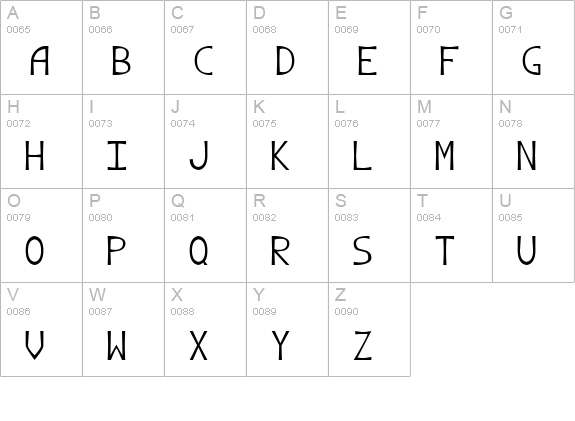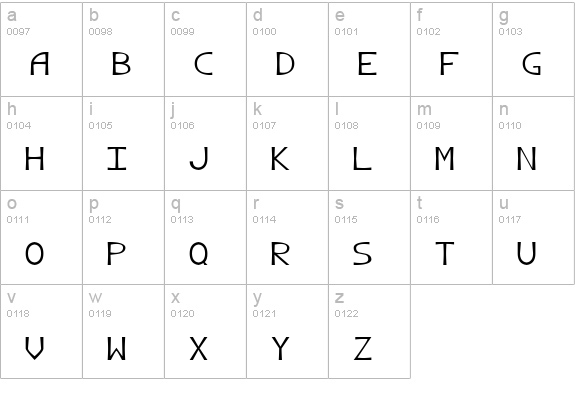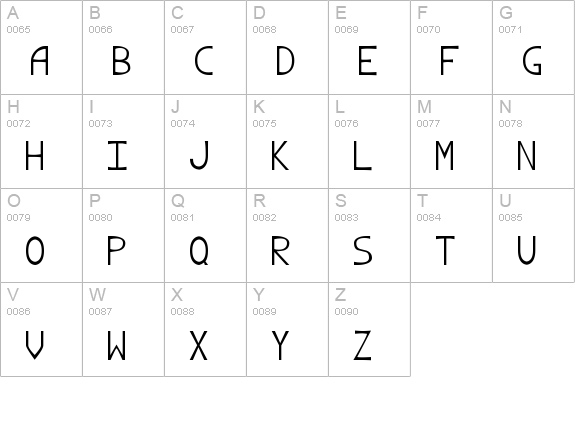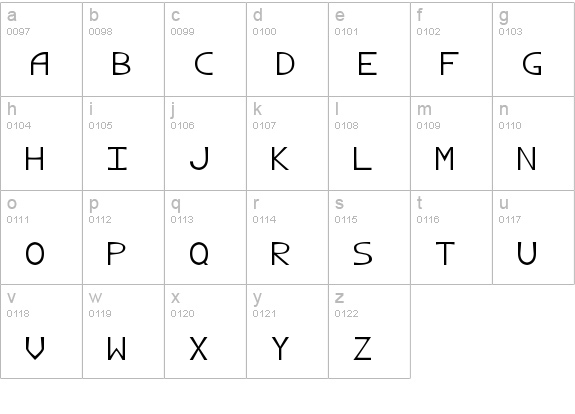
Angelus™ font is a beautifully designed typeface that exudes elegance and sophistication. With its delicate lines and graceful curves, this font is perfect for adding a touch of class to any project. Whether you're designing invitations, creating logos, or crafting elegant branding materials, Angelus™ font will make your work stand out. What's even better is that Angelus™ font is completely free to download at FontsMarket.com. You can easily access this stunning font and use it in both personal and commercial projects without any restrictions. Don't miss out on the opportunity to enhance your designs with the timeless beauty of Angelus™ font. Download it today and let your creativity soar.